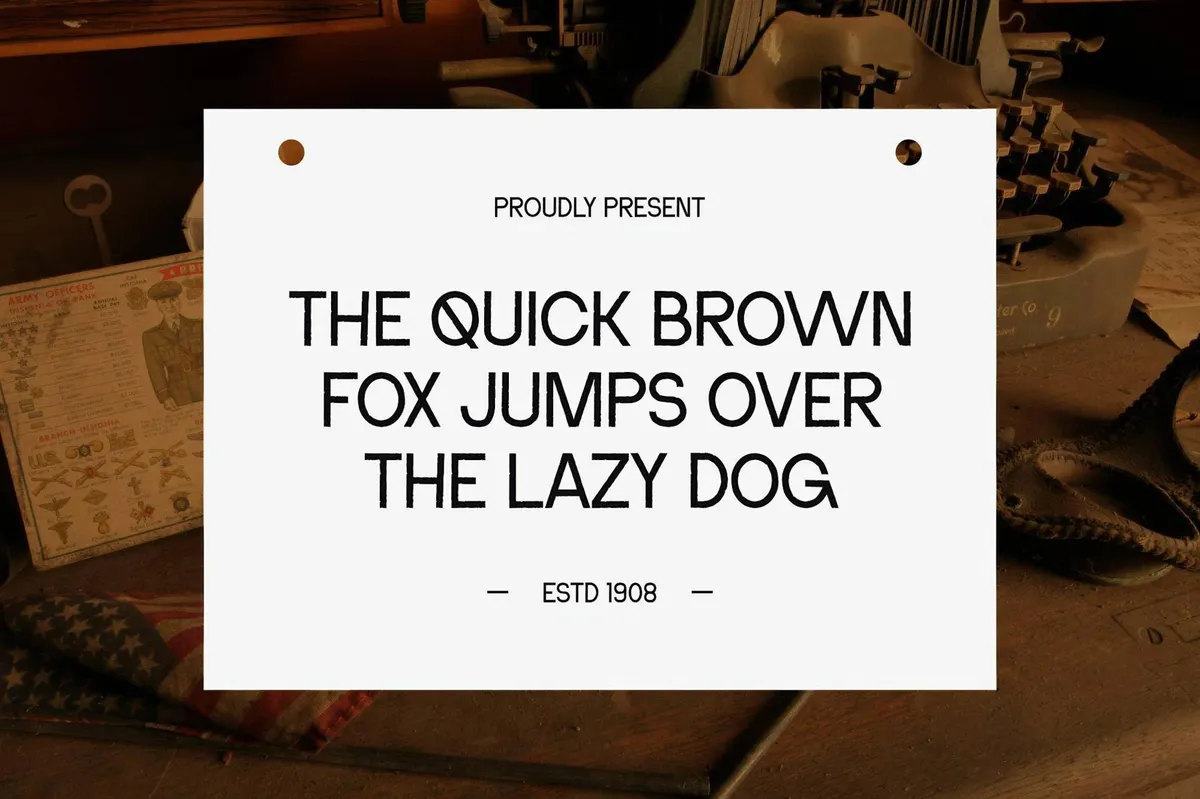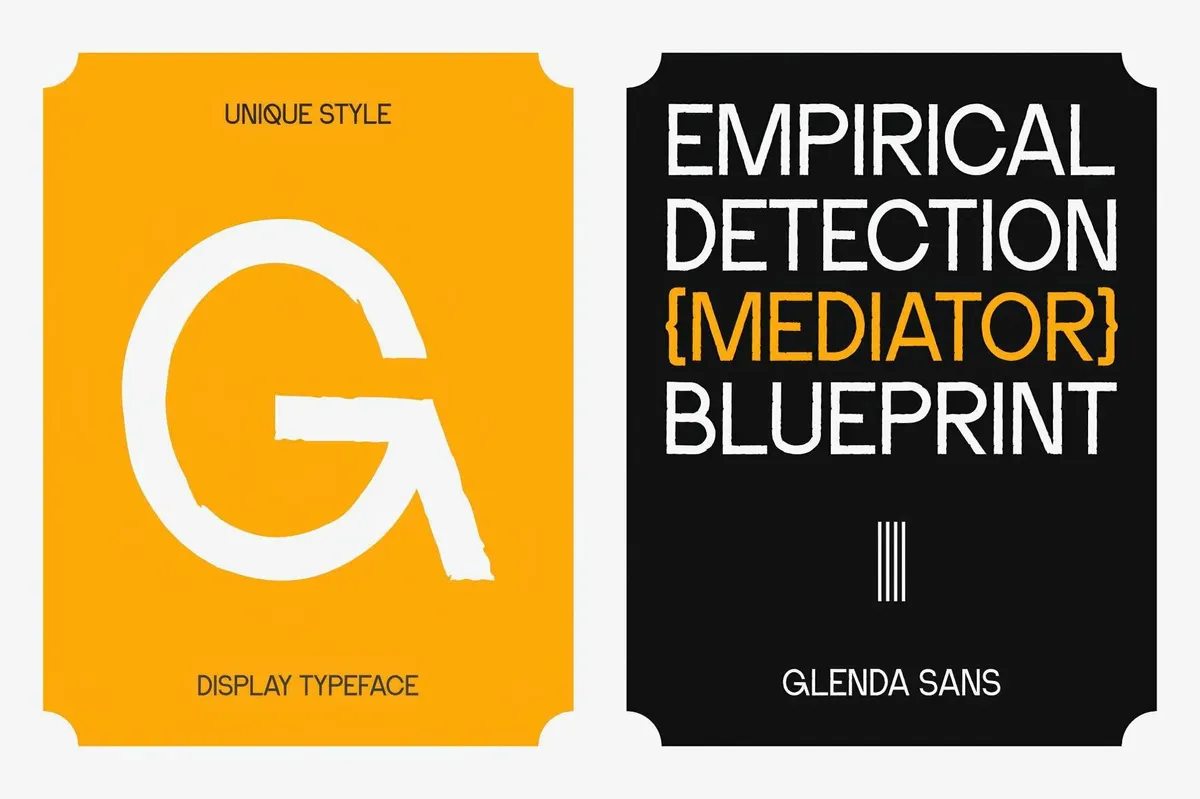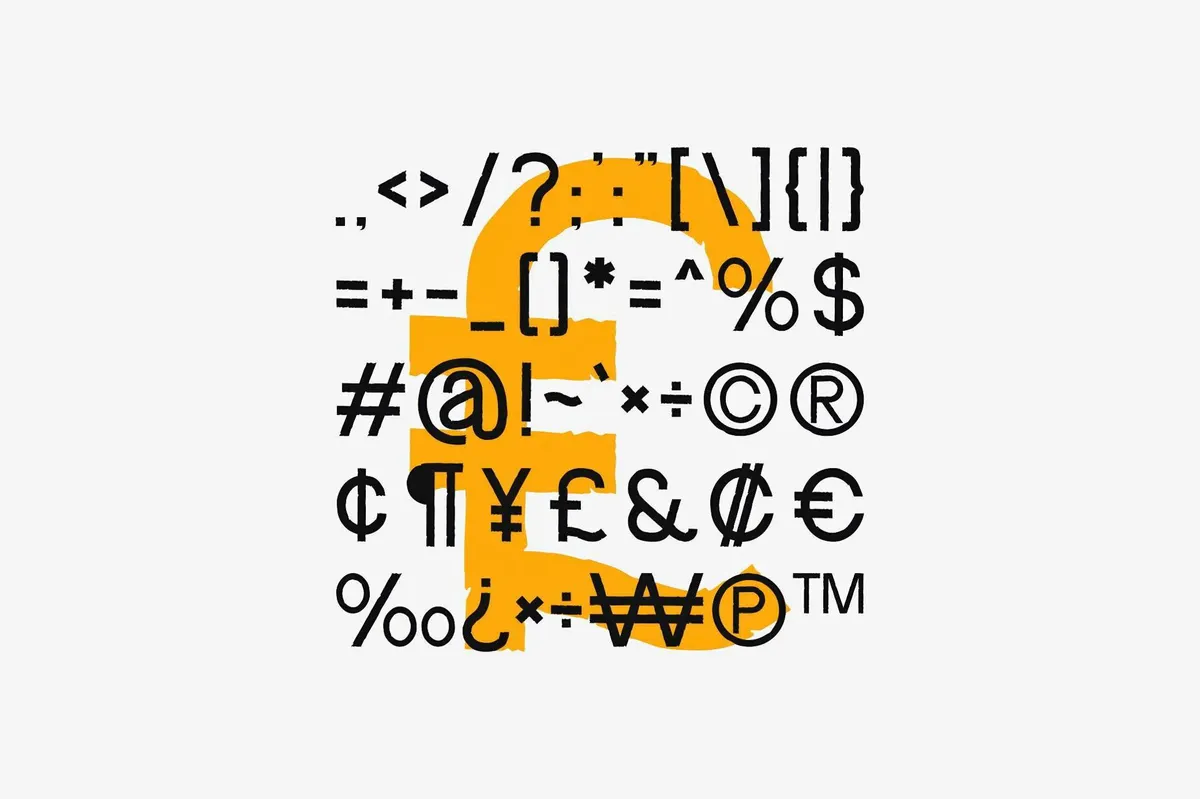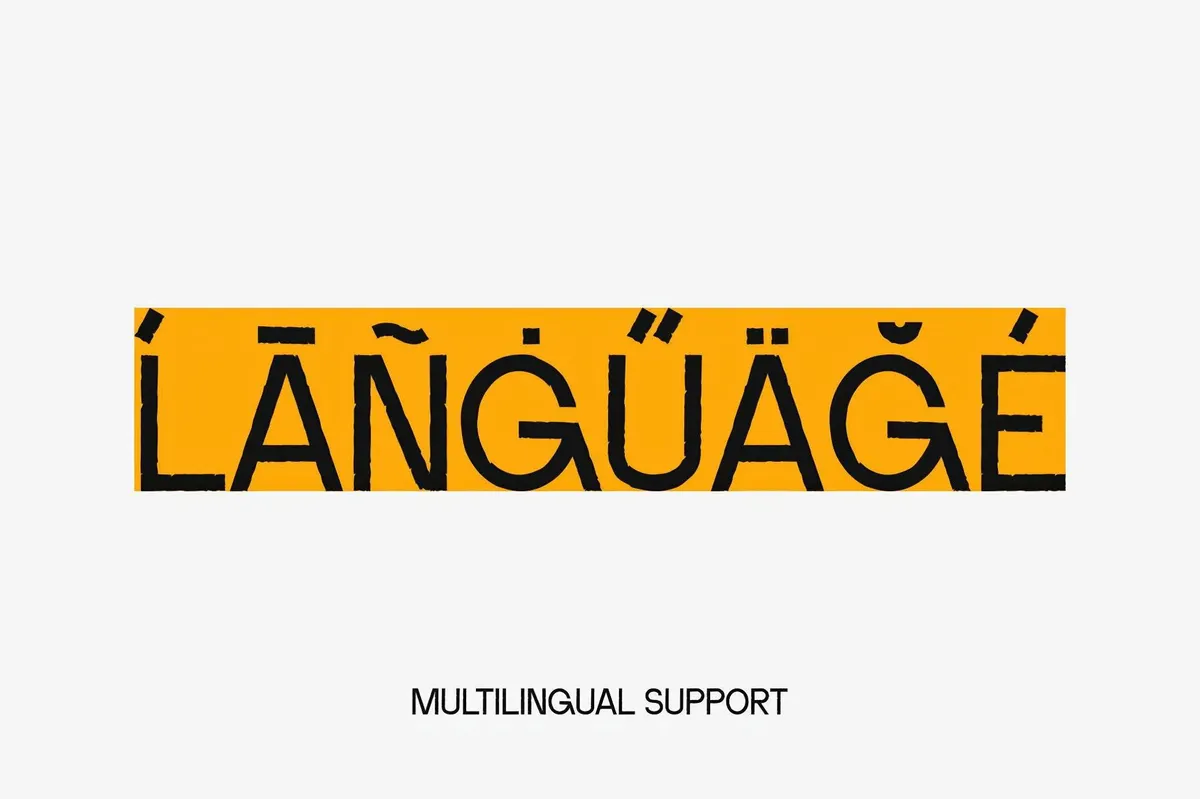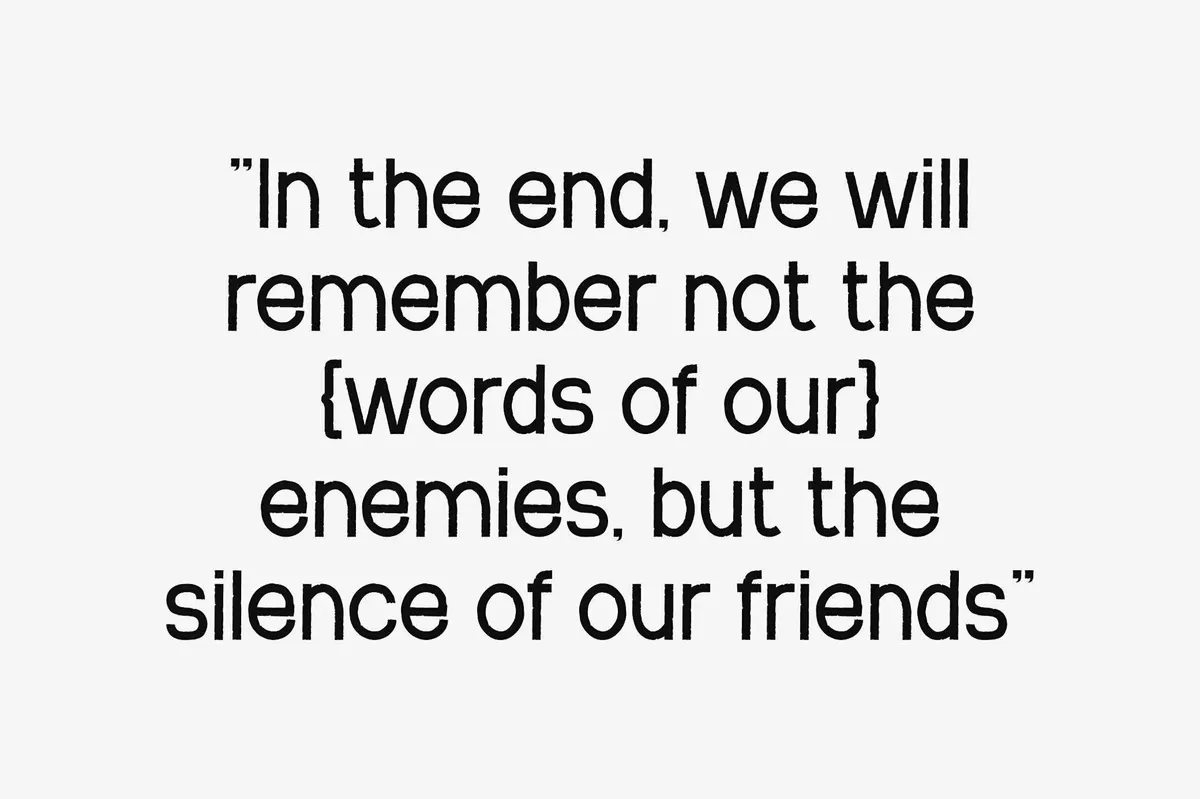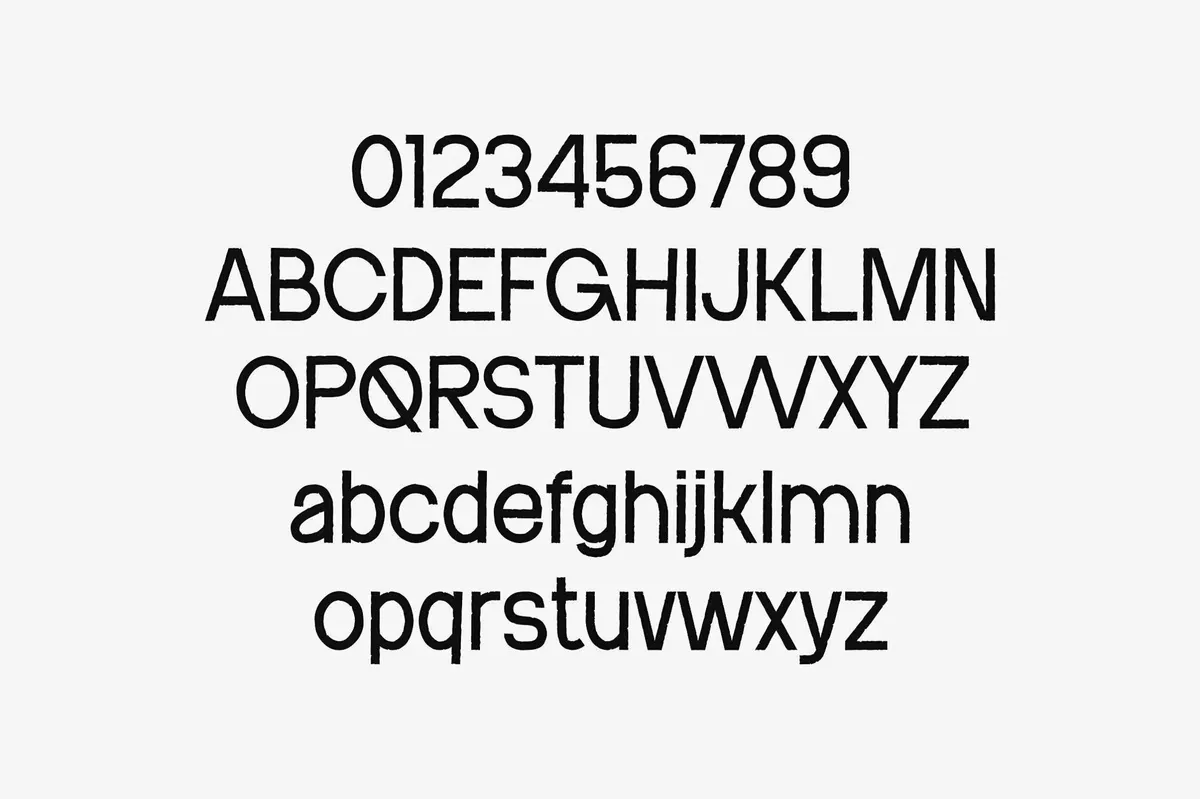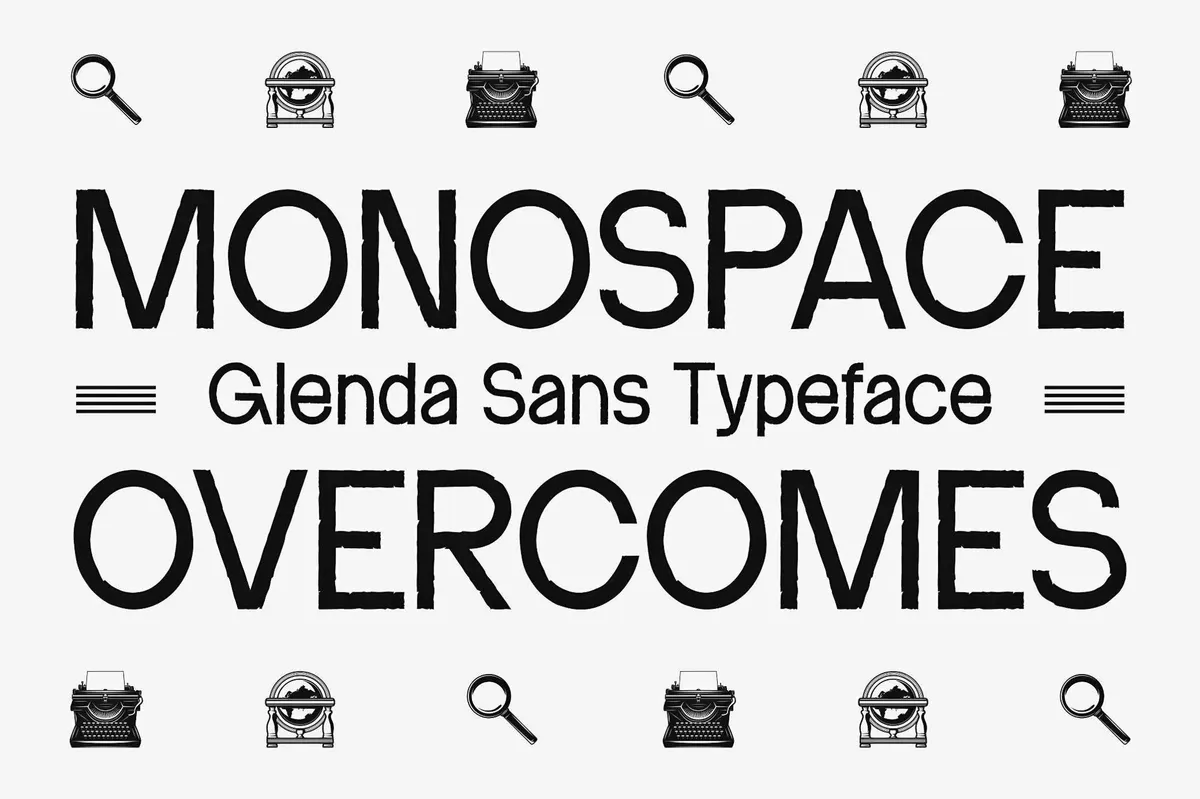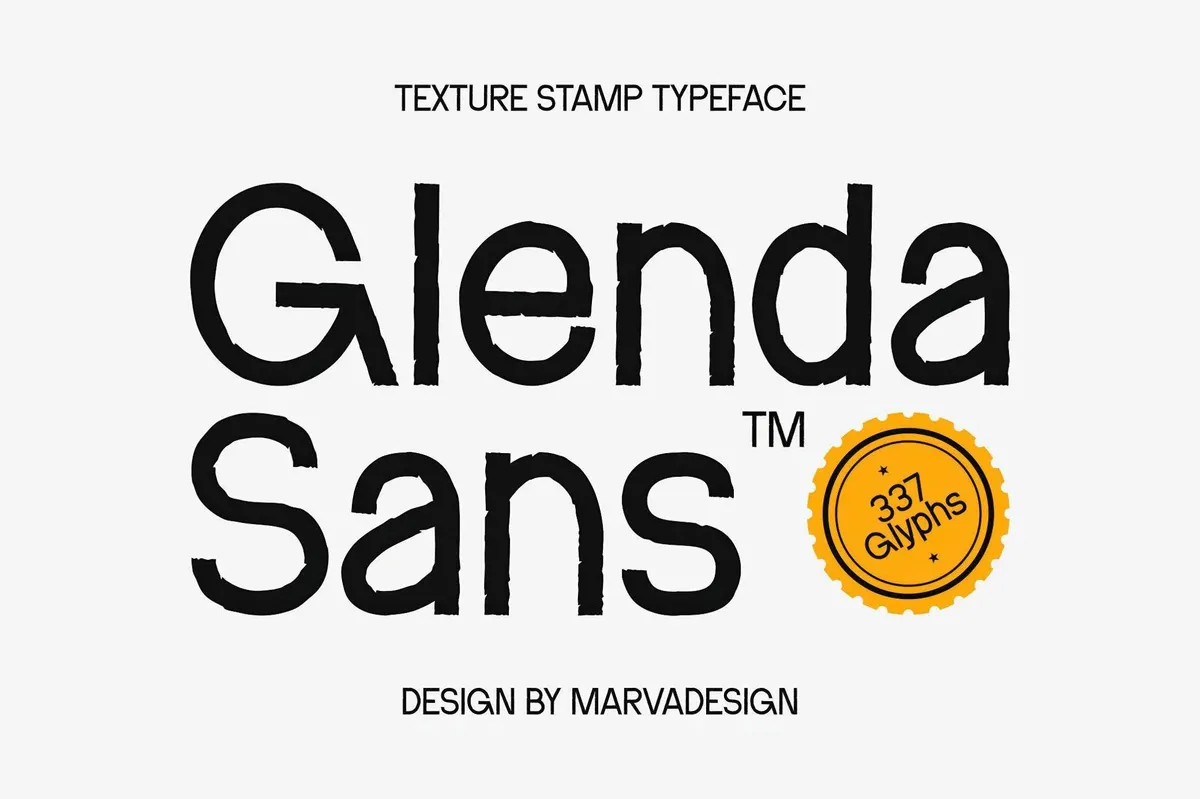
Glenda Sans — Texture Stamp Typeface
Glenda Sans
Glenda Sans wears the grit of old-school print like a badge of honor. The textured stamp-style brings a raw, rugged, and undoubtedly vintage look to the artboard. The worn edges and hand-pressed details feel like they’ve lived through decades of ink and pressure, making it a go-to for designs that need a bit of grungy nostalgia.
The set of glyphs includes upper and lowercase, numerals, punctuation, and multilingual support. It will make a perfect display font for branding, posters, packaging, or anything that demands character without trying too hard.